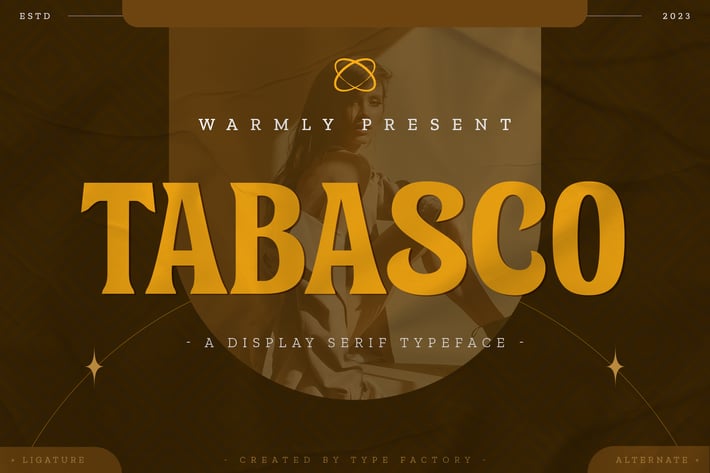
Tabasco - Display Serif Typeface
Tabasco is a striking display serif typeface that combines bold elegance with a hint of flair. Its refined letterforms feature sharp serifs and distinctive curves, making it an ideal choice for headlines, branding, and eye-catching print materials. The unique design of Tabasco exudes sophistication while maintaining a playful edge, perfect for projects that require a strong visual statement. Whether you're designing restaurant menus, event posters, or luxury product packaging, Tabasco adds a touch of class and personality to your work. Elevate your designs with this versatile typeface that commands attention and leaves a lasting impression.